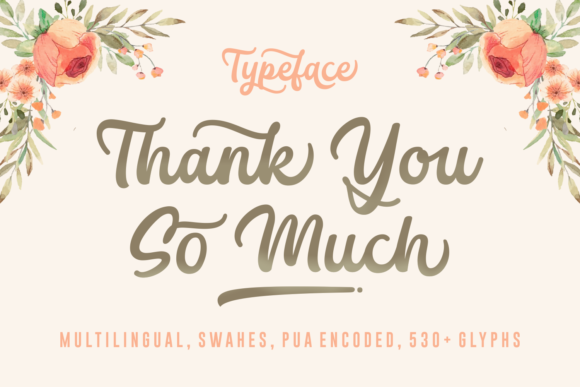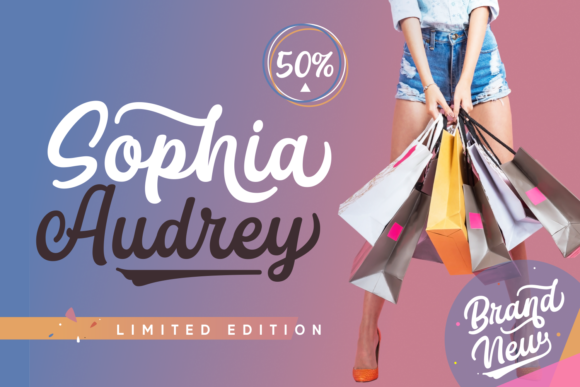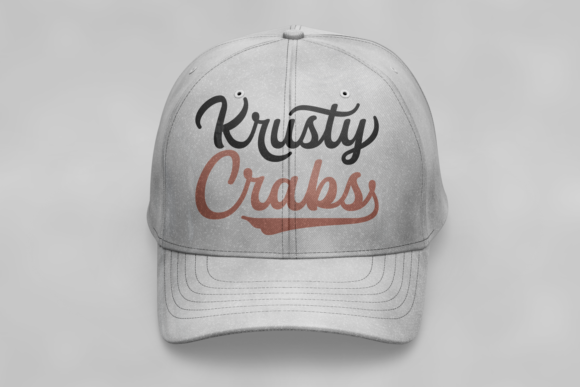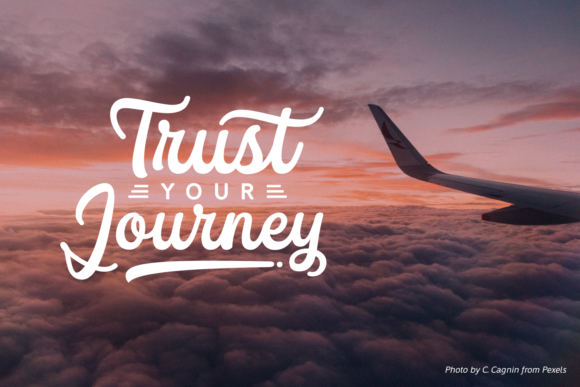
Thank You so Much Font
About Thank You so Much Font
Thank You So Much is an amazing and beautiful handwritten font with heaps of personality! It will add a unique spark to any design idea.